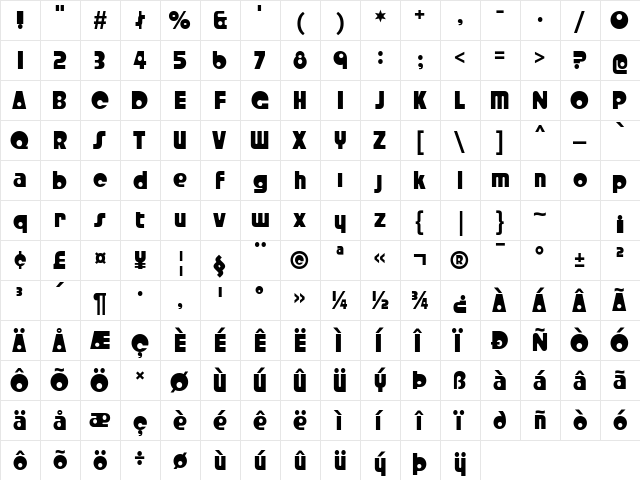
Crystal Radio Kit Regular
Design Context for Crystal Radio Kit Typeface
Crystal Radio Kit takes a measured approach to typography — its balanced proportions and neutral character make it a reliable workhorse for both digital and print work.